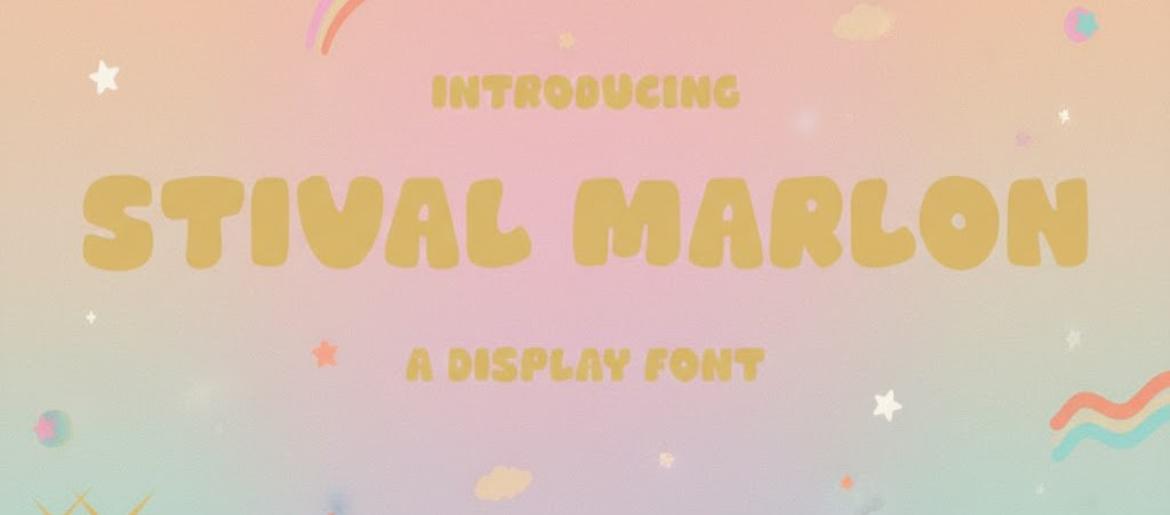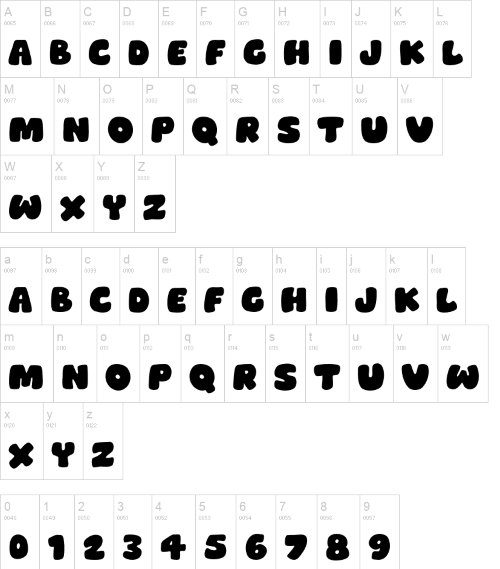
Stival Marlon Font
Stival Marlon Font is a fun, cartoon-style display typeface packed with personality and playful charm. With its bold strokes, rounded shapes, and lively character, it’s perfect for kids’ designs, comics, posters, logos, and cheerful branding. Stival Marlon adds energy, humor, and a friendly animated feel to any creative project.
➤ Font Name: Stival Marlon
➤ Designer: Origin Type
➤ Style: Cartoon